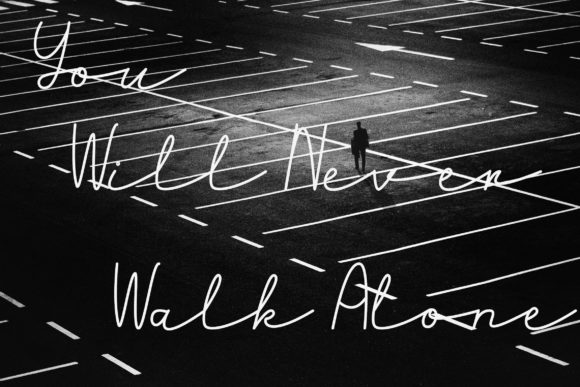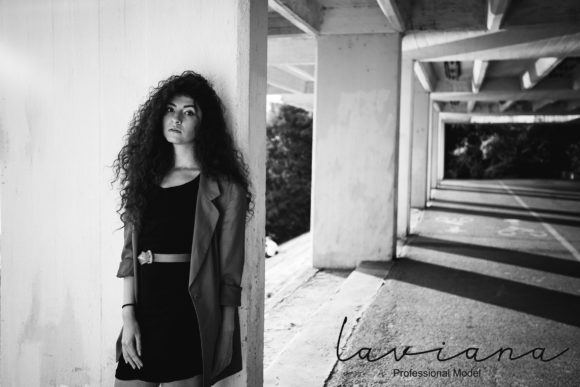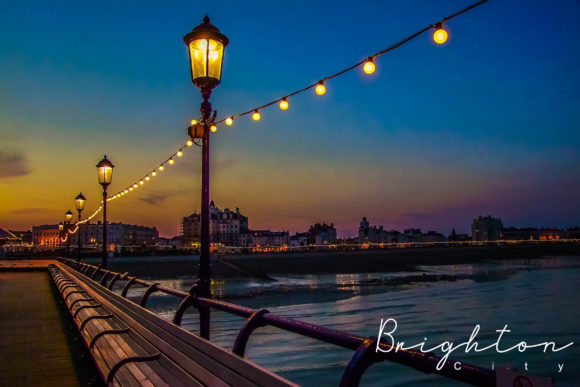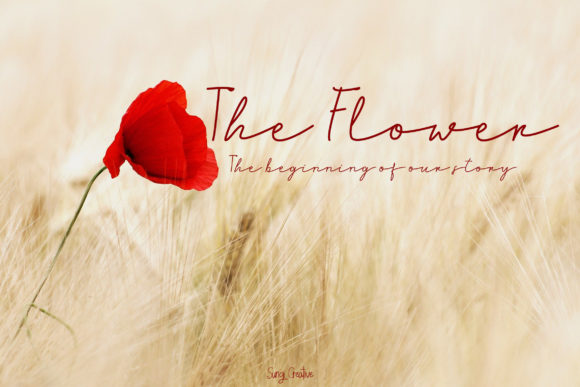
HomeScript FontsBrighton Font Script Fonts Brighton Font FacebookXPinterestWhatsApp Brighton Font Poster 2 Brighton Font Poster 3 Brighton Font Poster 4 Brighton Font Poster 5 About Brighton Font Brighton is a gorgeous script with a unique twist. Fall in love with its playful charm. DOWNLOAD ON CREATIVE FABRICAThis font is sold and delivered by Creative Fabrica. Font Canyon may earn a commission if you buy through this link. People also explored Town Hill Font Shannie Font Small Memory Font American Favorite – A Luxury Font Duo Our Story Begins Font Rafelia Font Harsey Font Anomuitsy Font Mongolia Font 311 0 TagsBrighton Font Previous articleHoneymoon FontNext articleSparta Font LEAVE A REPLY Cancel reply Comment: Please enter your comment! Name:* Please enter your name here Email:* You have entered an incorrect email address! Please enter your email address here Website: Save my name, email, and website in this browser for the next time I comment. Personal Use Free Just Love Personal Use Free Read more about this font Vinograd Personal Use Free Read more about this font Retro Poster Personal Use Free Read more about this font Wildwest Personal Use Free Read more about this font BLOG Elegant Wedding Invitation Fonts – Handwritten & Script Fonts Elegant Wedding Invitation Fonts Your wedding day is one of the most important moments of your life, and every detail matters—including your invitation design. Our... Best Fonts for YouTube Videos: Make Your Thumbnails Stand Out Using Fonts in Digital Marketing: Tips to Strengthen Your Brand Identity How to Install and Use Fonts on Windows, macOS, and Web Projects